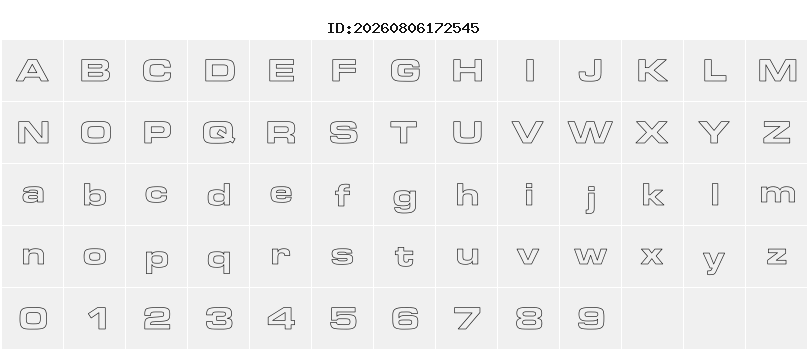
About Oleo Extended Hollow.ttf
Oleo Extended Hollow.ttf is a modern, elegant sans-serif font designed for ultimate readability and visual harmony. Perfect for branding, headlines, web design, and print materials.